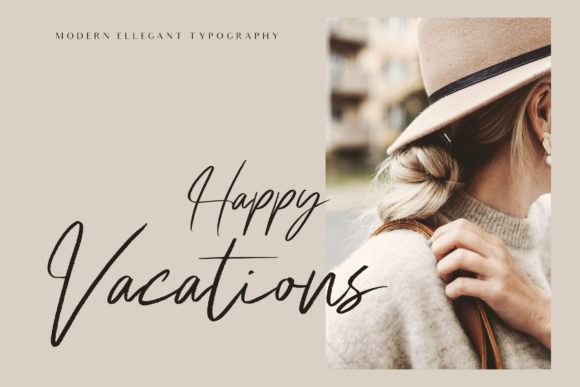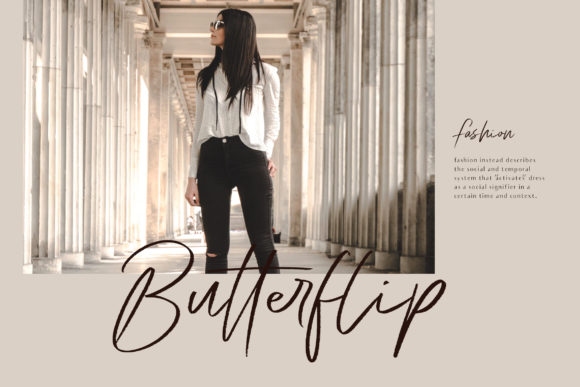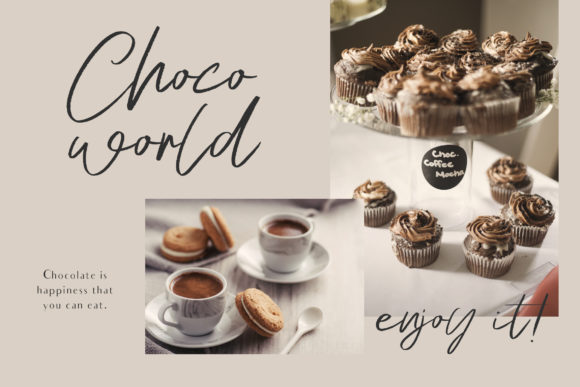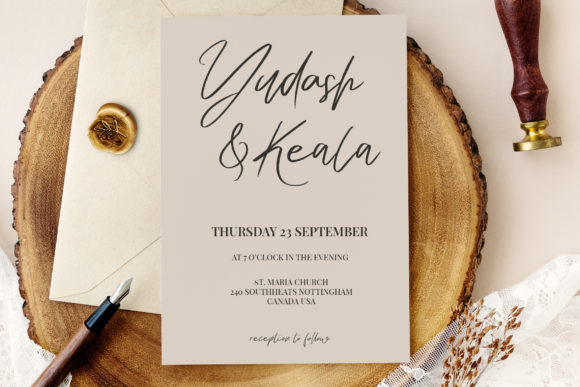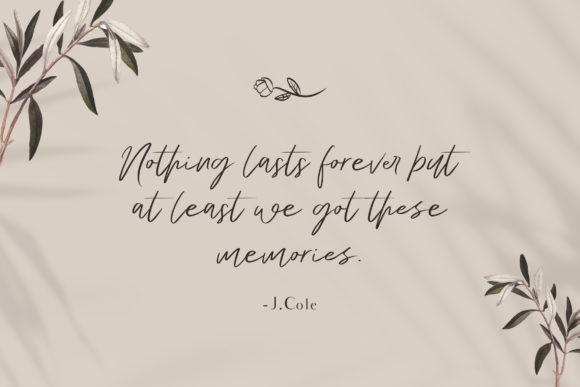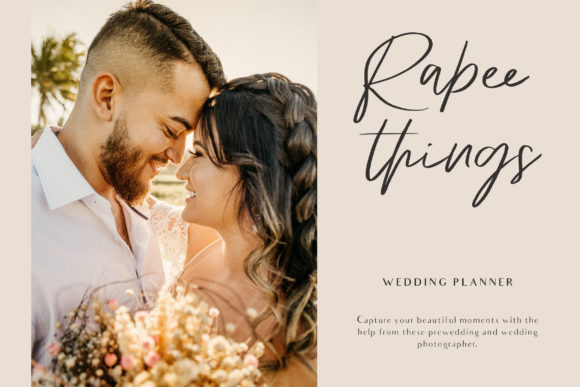
Introduction to Me Amanda Font
Have you ever been working on a creative project, pouring your heart and soul into every detail, only to feel like something is missing? That’s where the perfect font can make all the difference. For designers, finding the right font can be a game-changer, elevating a design from good to great.
One such font that has been making waves in the design community is the Me Amanda Font. This modern calligraphy brushed font is a versatile and high-quality design resource that can be used for a wide range of purposes, from logos and wedding invitations to headings and signage.
What sets Me Amanda Font apart is its unique, hand-painted look, which lends itself perfectly to creative projects that require a touch of elegance and sophistication. With a transparent background, it’s easy to use and can be downloaded for free, making it an invaluable resource for designers of all levels.
Key Features of Me Amanda Font
- Me Amanda Font is available in 3 different font weights (Light, Regular, Bold)
- Designed to be highly legible at various resolutions and sizes, making it suitable for digital and print use
- Perfect for designers and artists looking for a unique and stylish font to enhance their creative project
Honest Review: Me Amanda Font
As a designer, I’m always on the lookout for high-quality design resources that can elevate my creative projects. Recently, I stumbled upon the Me Amanda Font, and I’m excited to share my honest review.
What works well: ✨ The Me Amanda Font is a beautifully crafted script font that’s perfect for adding a touch of elegance to your designs. The font’s flowing lines and organic feel make it ideal for projects that require a more personal touch. The transparent background also makes it easy to use on both light and dark backgrounds.
What doesn’t work so well: ⚠️ While the Me Amanda Font is a great addition to any designer’s collection, I did find it to be a bit limited in terms of customization options. The font’s style is quite distinct, which can make it difficult to pair with other fonts.
- Perfect for creative projects that require a personal touch
Overall, I’m impressed with the Me Amanda Font, and I would highly recommend it to designers looking for a unique and elegant script font. With its high-quality design and transparent background, it’s a great addition to any design resource library.
Me Amanda Font is ideal for a variety of creative projects, including branding, packaging design, and digital art. Its unique design and transparent background make it a great choice for creating visually appealing and eye-catching designs.
Alternatives to Me Amanda Font
Great Vibes Font is a high-quality script font ideal for creative projects requiring a modern and elegant touch. It’s perfect for wedding invitations, greeting cards, or any design that needs a sophisticated feel.
When to use: Great Vibes Font is suitable for designs that require a touch of sophistication and elegance. It’s not as playful as Me Amanda Font, but it’s a great alternative for those who want a high-quality, elegant script font.
Comparison: Great Vibes Font has a more refined and elegant feel compared to Me Amanda Font. While Me Amanda Font has a more playful and cursive feel, Great Vibes Font is more suited for formal and creative projects.